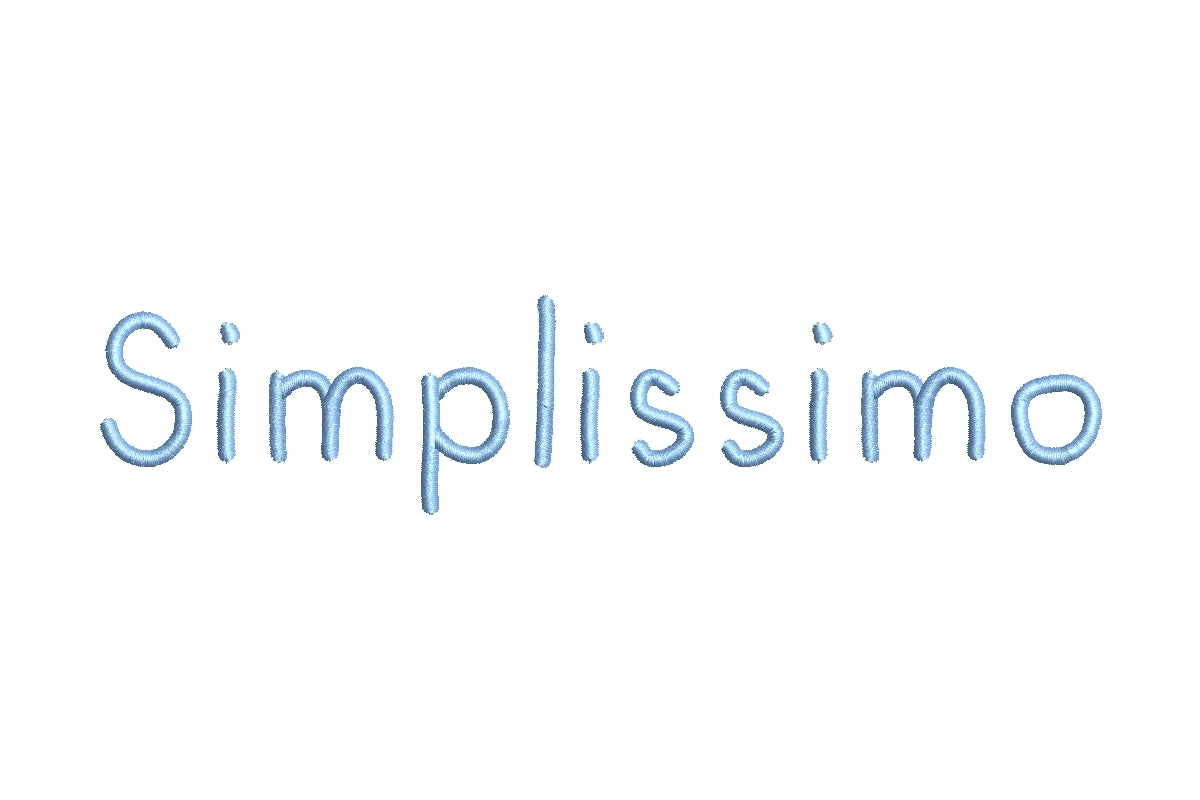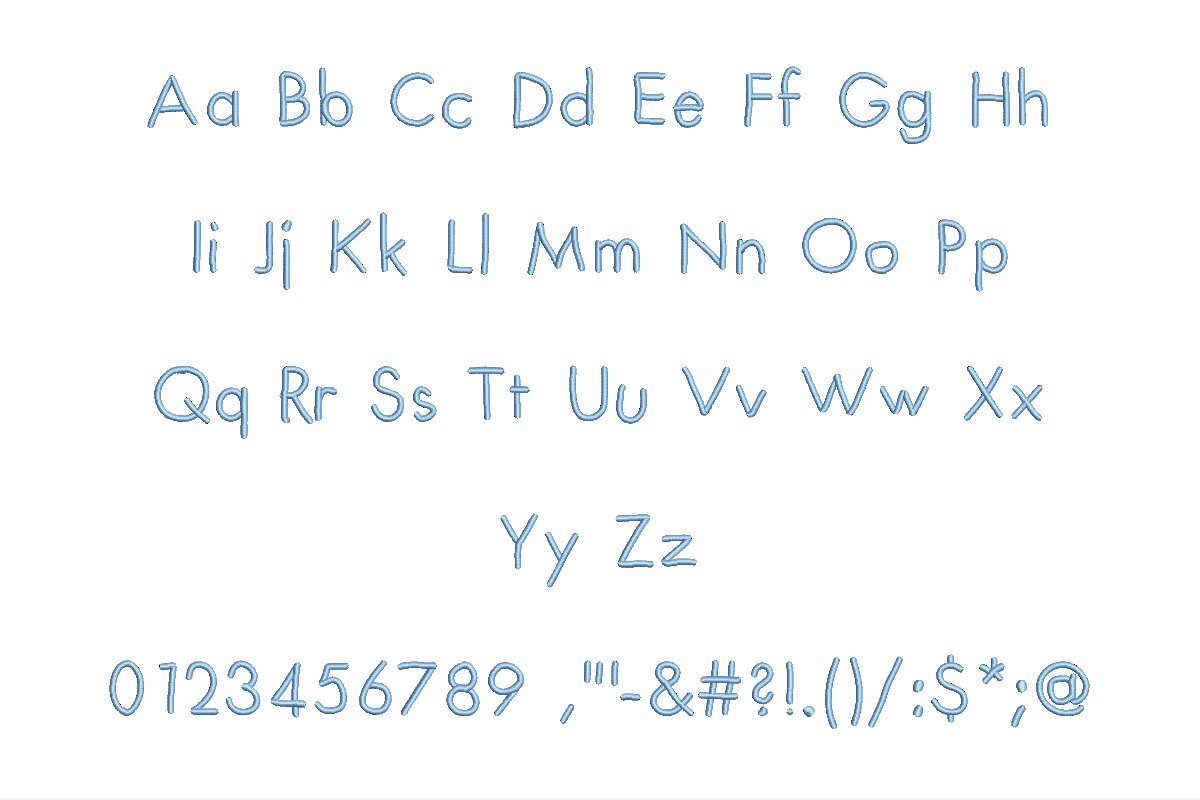
Discover embroidery excellence with Simplissimo Medium ESA font, tailor-made for Wilcom Studio e4.5.6 and Hatch 3 versions and beyond. This font is the epitome of precision and compatibility, ensuring impeccable stitching quality for your embroidery projects. Its contemporary design boasts both elegance and readability, making it ideal for various creative applications. The ESA format guarantees precise digitization, enabling seamless integration with both Wilcom Studio and Hatch. From crafting monograms to logos and text, Simplissimo ESA font simplifies the design process, delivering unmatched clarity and style. Elevate your embroidery to professional levels with Simplissimo Medium ESA font, the ultimate choice for discerning creators.